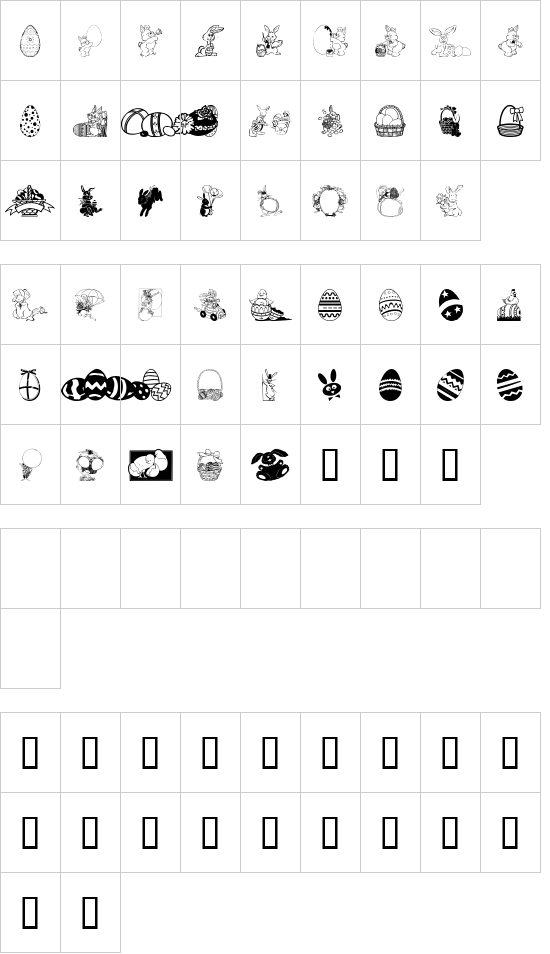
Easter art is a seasonal dingbat font full of bunnies, eggs, baskets, and springtime symbols, each ready to drop into a layout as finished decoration. The cheerful, rounded drawings carry a bright holiday warmth that suits the season.
It fits Easter cards, holiday party invitations, spring sale graphics, and craft projects that need festive decorations on hand. Easter art is free to download as a TrueType file, and you can preview the keys to see which seasonal symbols appear before arranging them across your own design.